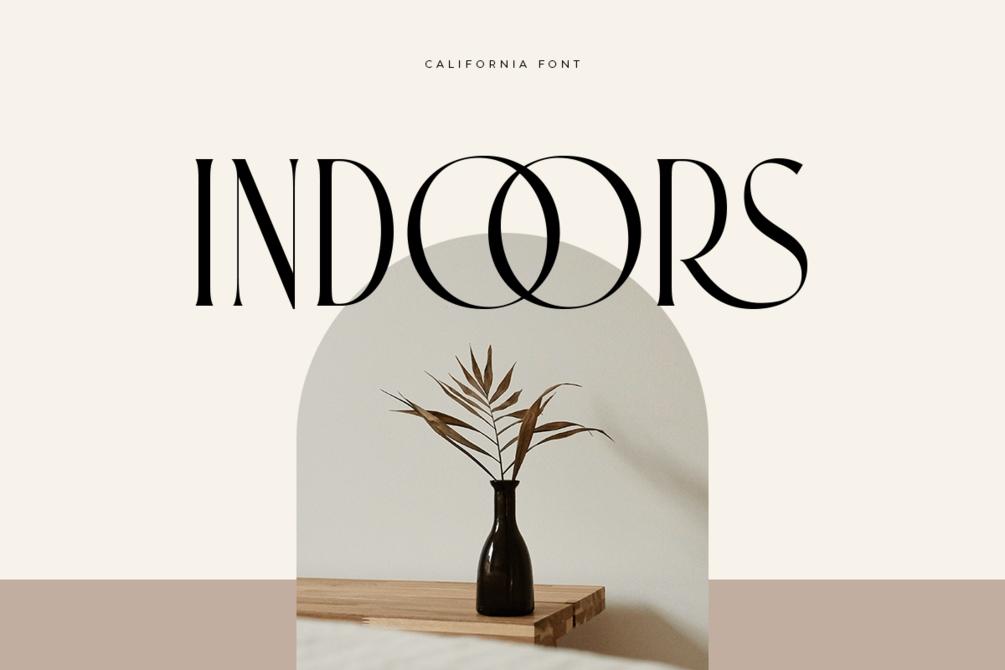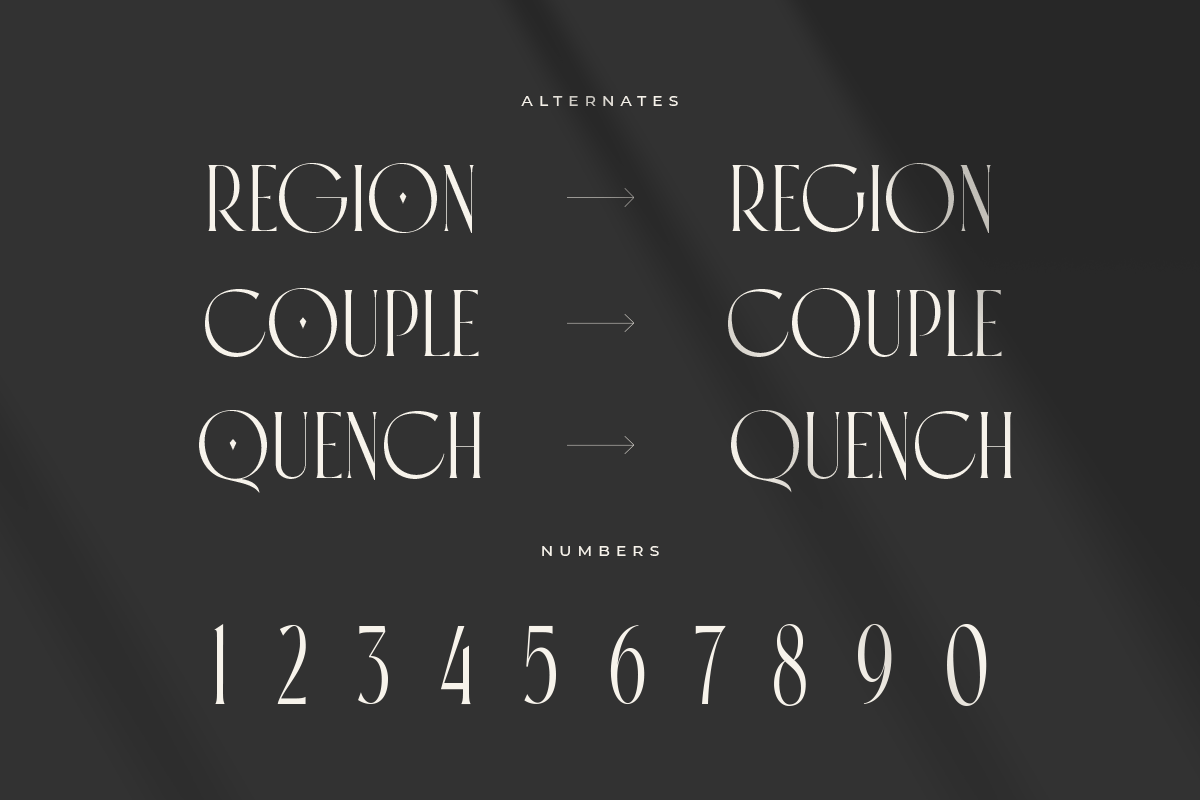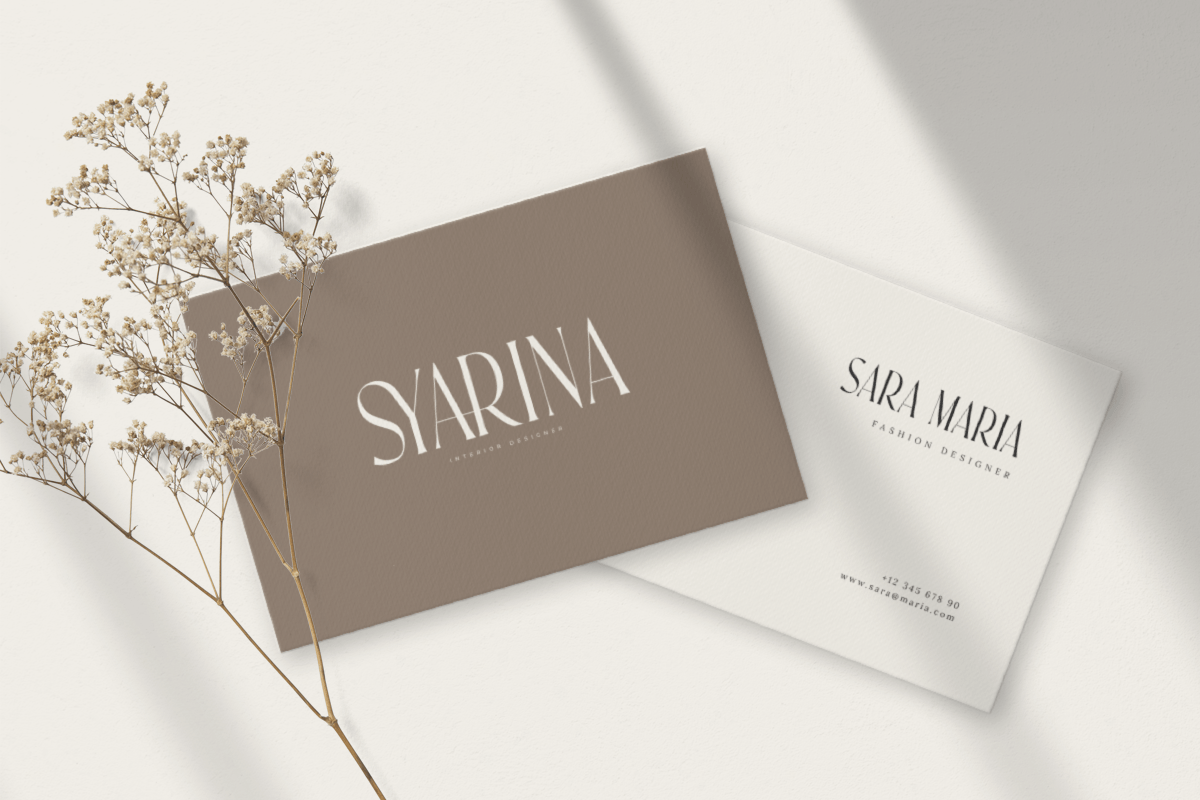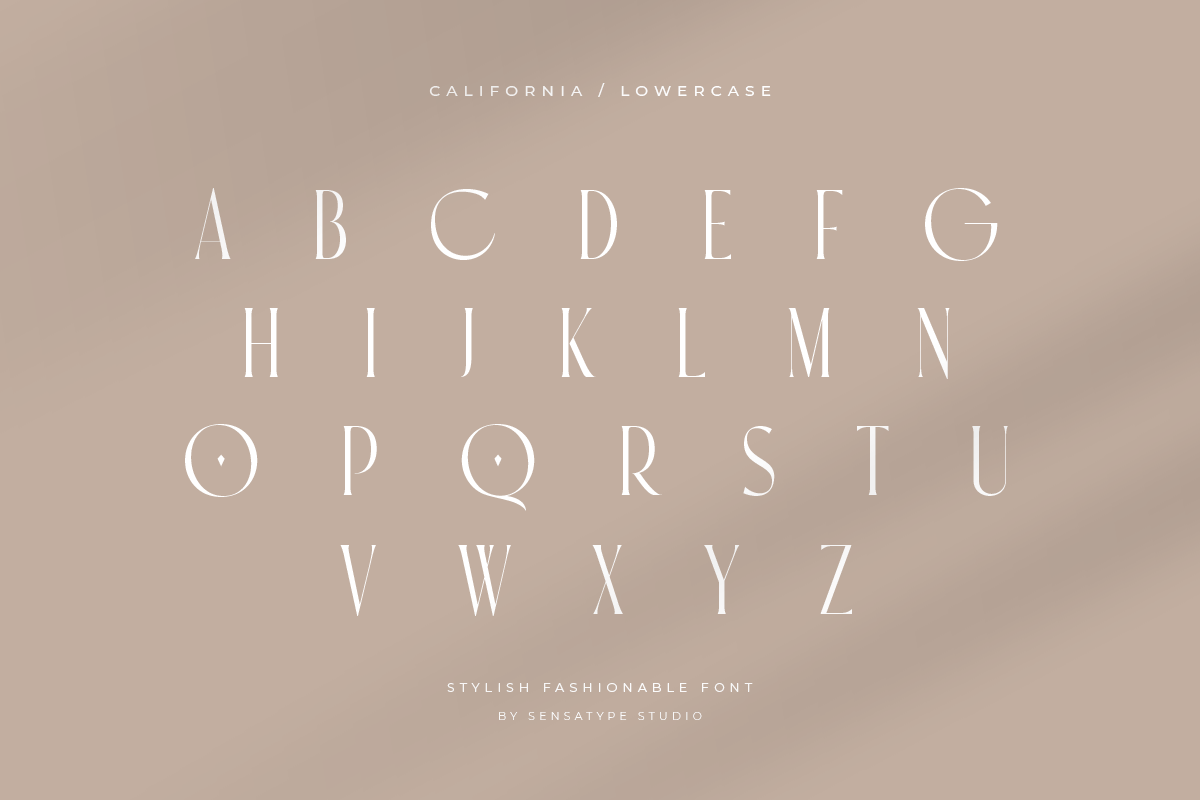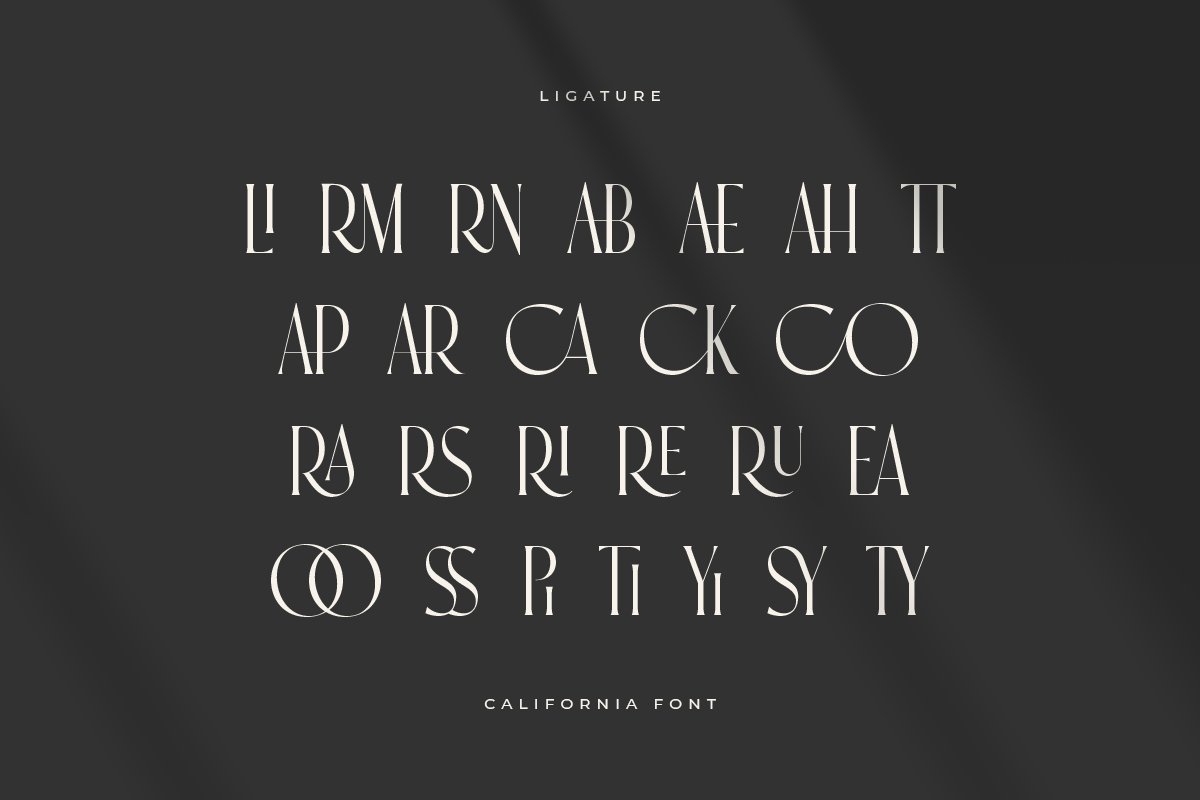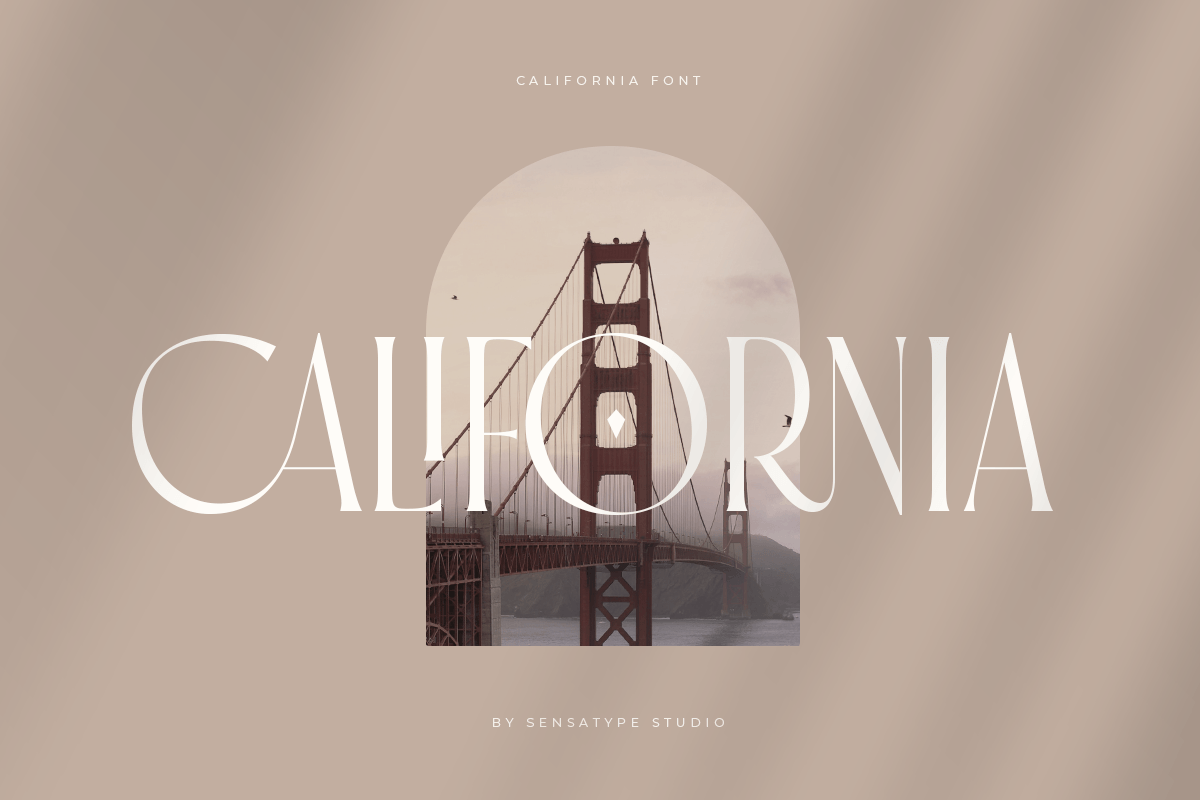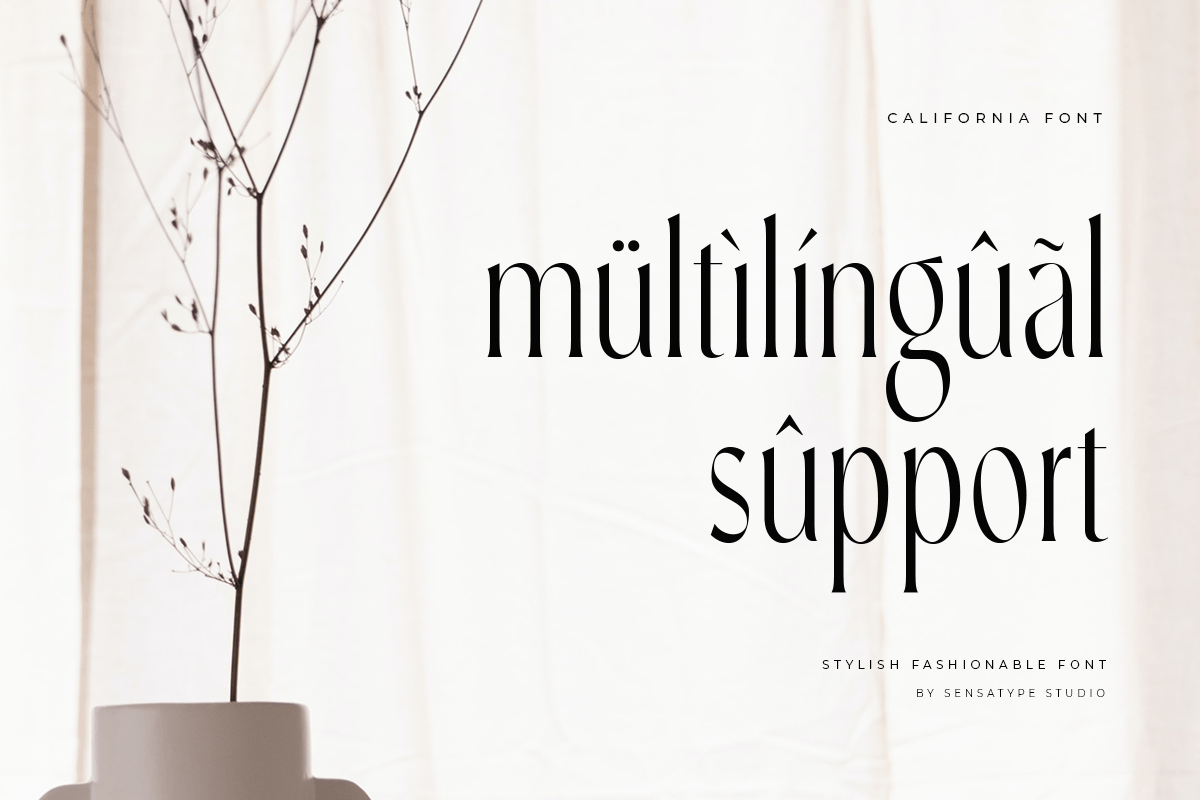
California - Stylish Fashion Font
California is a stylish fashion font designed to bring elegance and sophistication to your creative projects. Ideal for branding, logos, editorial layouts, social media, packaging, and fashion-related designs, it blends modern style with refined charm.
With smooth, legible letterforms, California delivers a polished and professional look suitable for both digital and print applications.
California – Stylish Fashion Font Features
- Elegant and stylish character set
- Perfect for fashion branding, logos, and editorial designs
- Uppercase, lowercase, numerals, and punctuation included
- OpenType features for extra versatility
- Multilingual Support